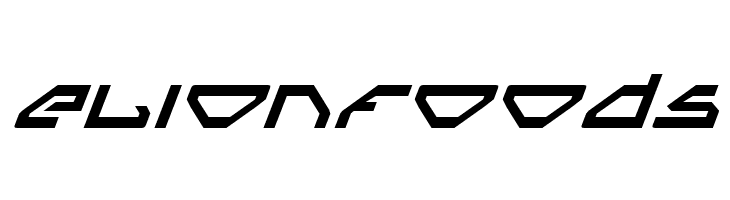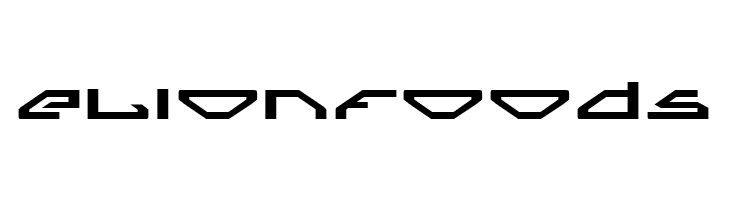
Photogenics Demo Font
- Font: Photogenics Demo
A futuristic, angular italic font with bold strokes and a dynamic slant.
A futuristic, angular font with bold geometric shapes.
A futuristic, angular, and italicized font with a sleek, modern design.
A futuristic, angular font with an italic slant and expanded width, perfect for modern designs.
A bold, italicized font with a futuristic, angular design.